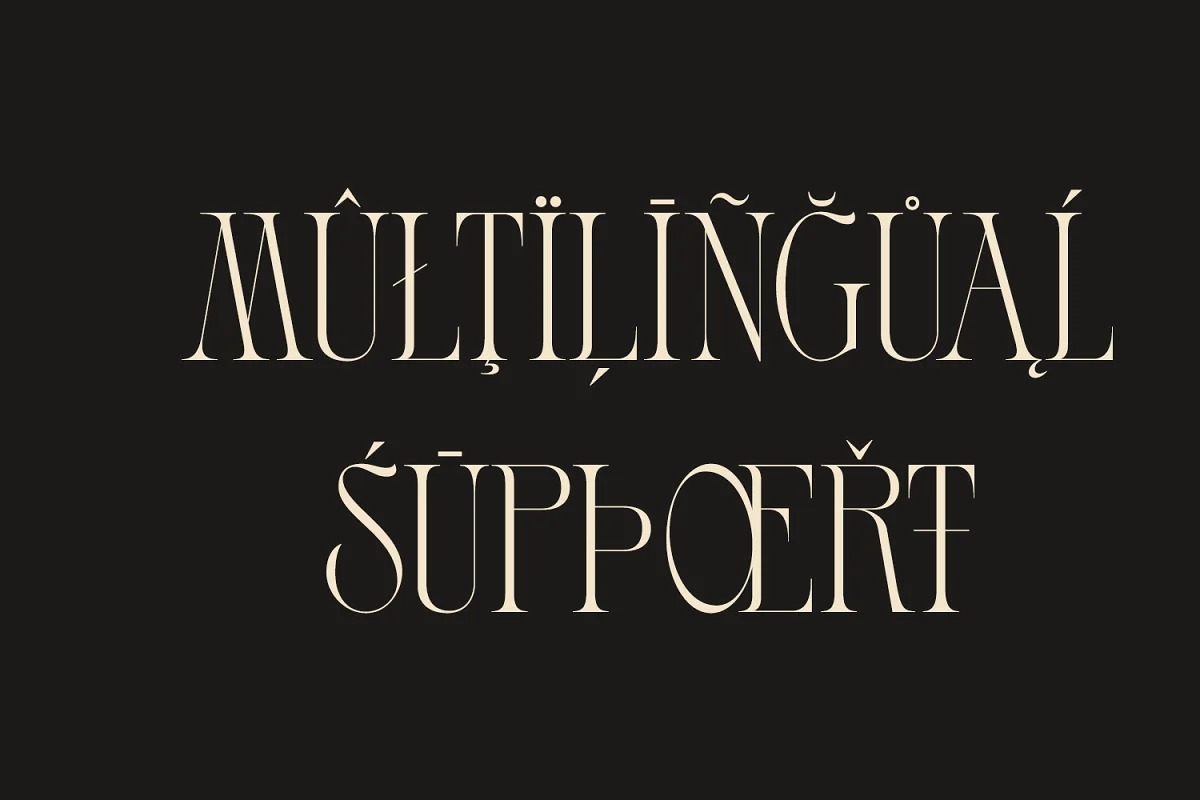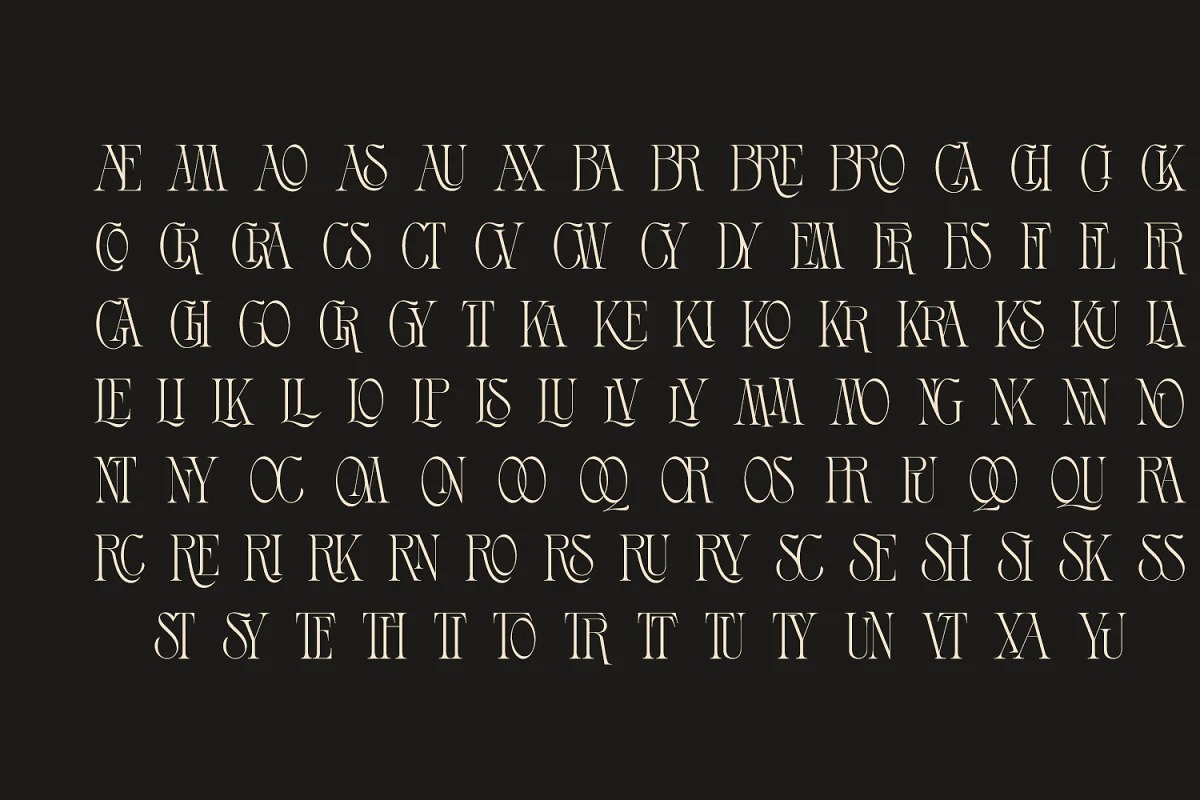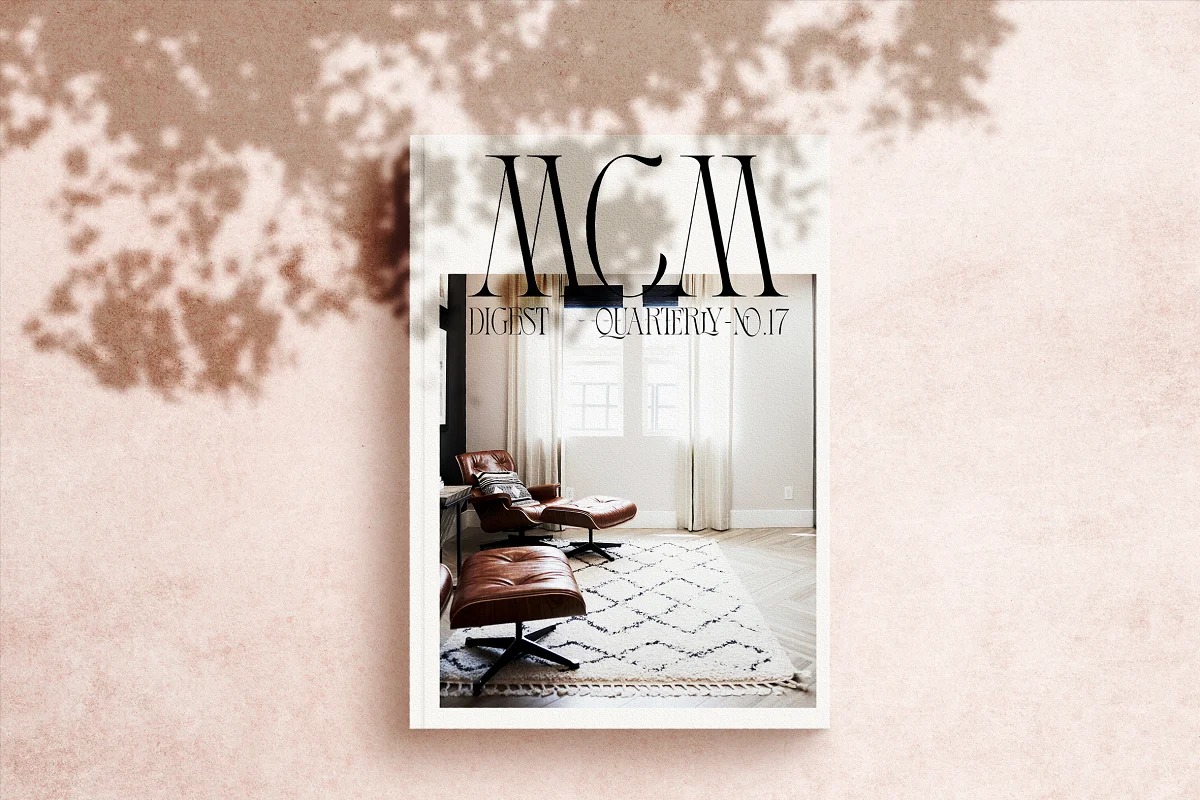
Roxton Serif Font is a modern classy serif typeface crafted & designed by Surplus Type Co. Featuring an elegant and classic all-caps style, this font reflects the elegance and style of the past. This typeface includes a massive selection of ligatures, making it perfect for a variety of creative projects such as logo design, content creation, packaging designs, stationery & so much more.